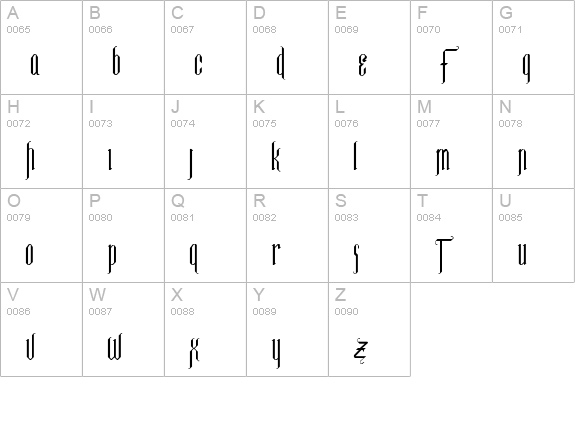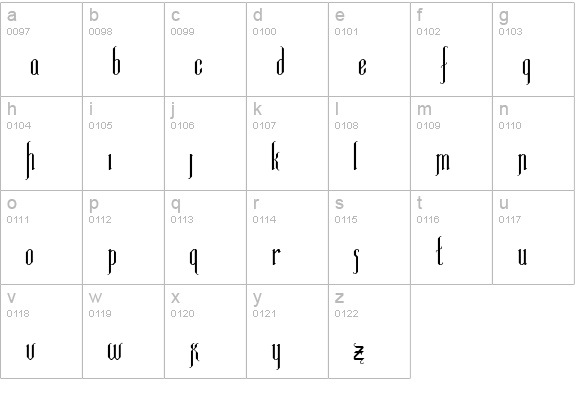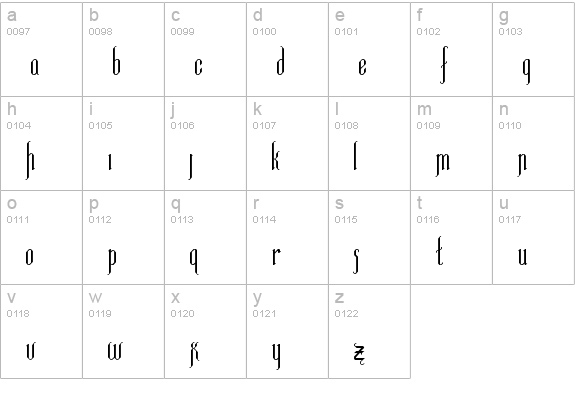
Mixemberge Font Details
Mixemberge is a stunning and versatile font that effortlessly combines elegance and modernity. With its unique blend of sleek lines and sophisticated curves, Mixemberge is the perfect choice for a wide range of design projects, from branding to editorial design. This font features a wide range of weights and styles, allowing you to create dynamic and eye-catching typography with ease. Whether you're looking to add a touch of sophistication to your next project or want to make a bold statement, Mixemberge has got you covered. Best of all, Mixemberge is available for free download at FontsMarket.com, making it accessible to designers of all levels. Don't miss out on the opportunity to elevate your designs with this exquisite font – download Mixemberge today and let your creativity soar.